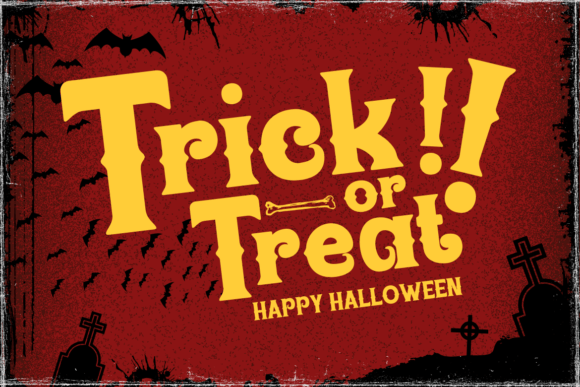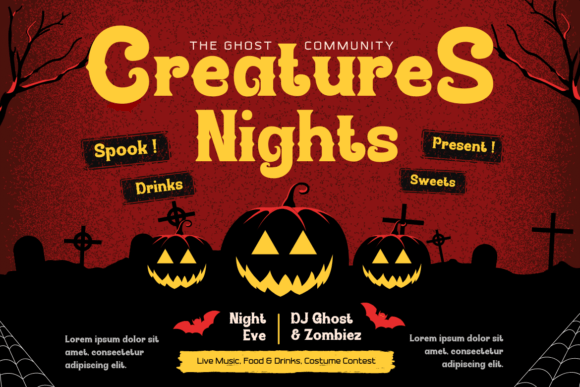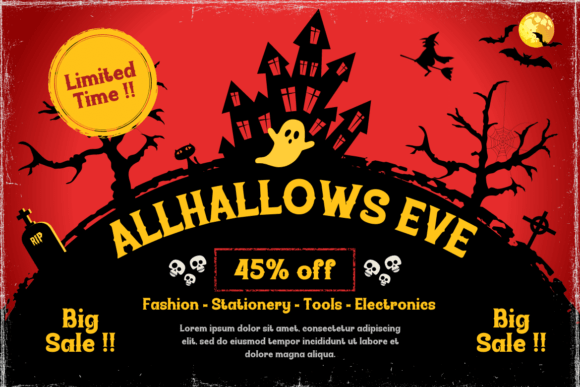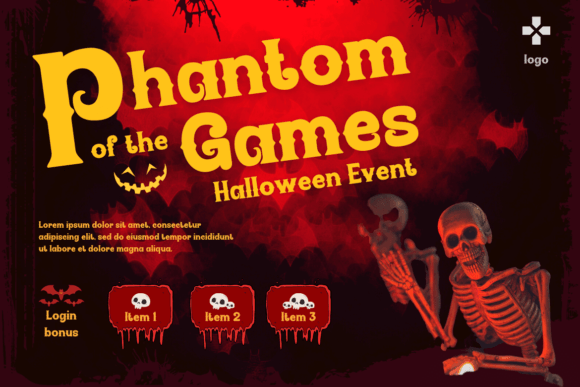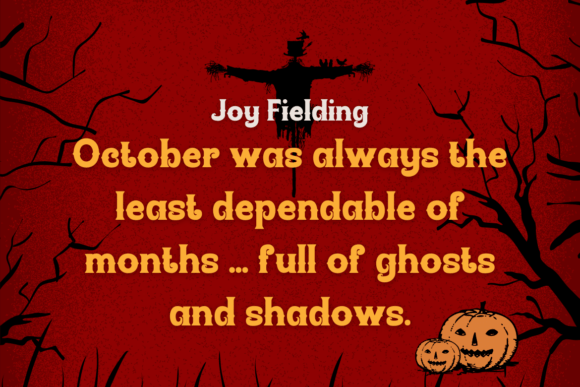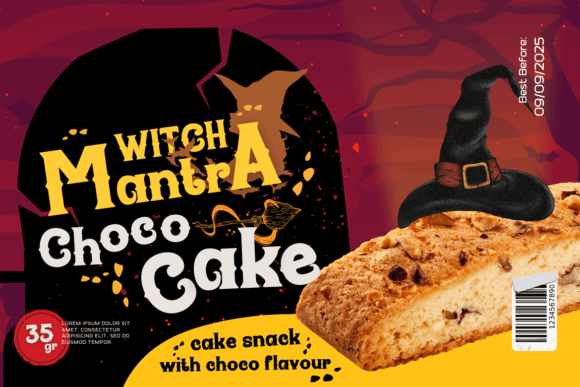
Introduction to Firwaen Font
As designers, we’ve all been there – staring at a blank canvas, trying to spark that creative spark. For me, it was a late-night brainstorming session, surrounded by cobwebs and jack-o-lanterns, where I stumbled upon the perfect font for my Halloween project: Firwaen Font. Its bold, eerie presence seemed to come alive in the dim light, and I knew I had found my perfect design companion.
Whether you’re a seasoned designer or a creative enthusiast, the Firwaen Font is a valuable addition to your design arsenal. Its versatility and high-quality design make it perfect for a wide range of creative projects, from spooky signs and decorations to invitations and posters. And the best part? It’s available for free download, making it an accessible resource for designers of all levels.
Key Features of Firwaen Font
- Unique, handcrafted design suitable for creative projects and artistic expressions.
- High-quality font with precise details and intricate design elements, ideal for projects requiring sophistication and elegance.
- Perfect for designers seeking a distinctive and creative font to elevate their design projects and stand out from the crowd.
Honest Review: Firwaen Font
One of the things that works well with Firwaen Font is its high quality design. The font is clean, modern, and versatile, making it perfect for a wide range of creative projects.
- ✨ Clean and modern aesthetic
- ✨ Versatile for various creative projects
However, there are some limitations to keep in mind. One major issue is that the font does not come with a transparent background, which can be a problem for designers who need to use it on images or backgrounds with complex textures.
- ⚠️ No transparent background available
- ⚠️ Limited font styles (only a few options available)
Overall, I’m impressed with the Firwaen Font and I would definitely recommend it to designers looking for a high-quality, free design resource. However, be aware of its limitations and see if it fits your specific needs.
Tips for Getting the Most Out of Firwaen Font
To get the most out of Firwaen Font, use it on a transparent background to create a clean and modern design. You can also pair it with other high-quality fonts to add depth and visual interest to your project.
Firwaen Font is suitable for a variety of creative projects, including business cards, brochures, and website headers. You can also use it for free download and modification in your design work.